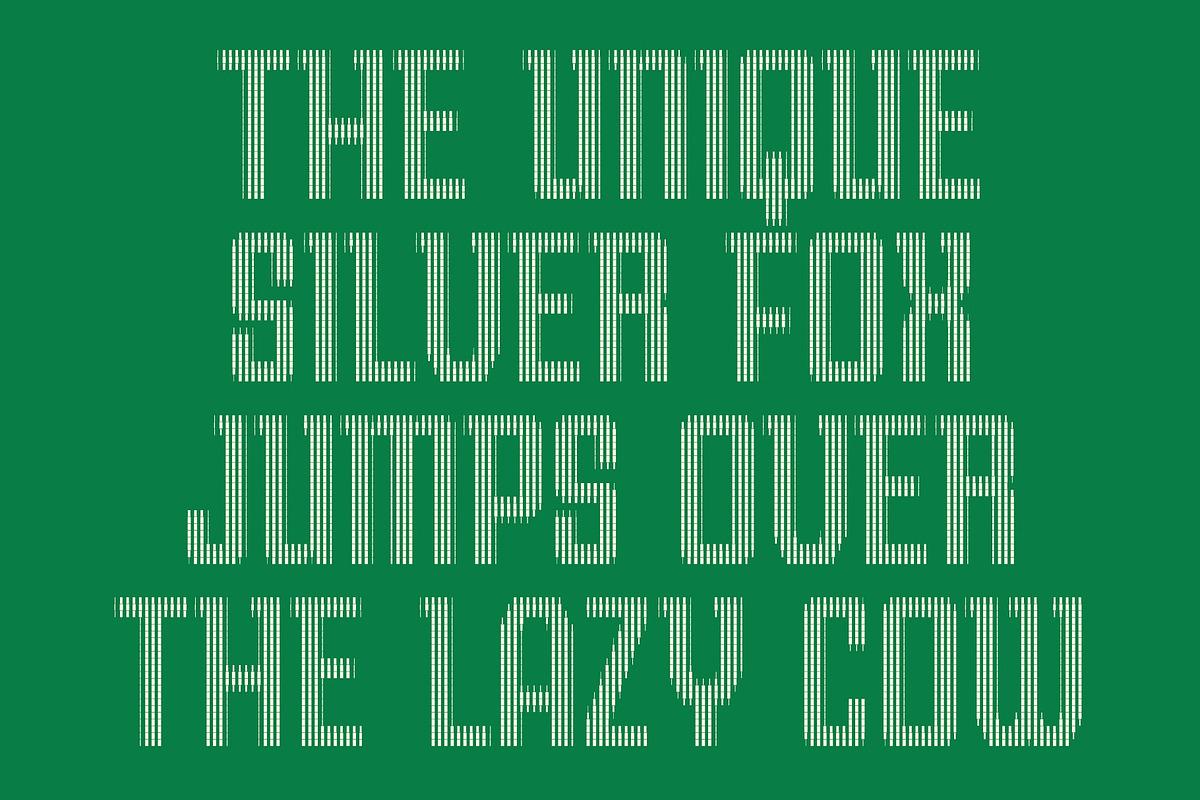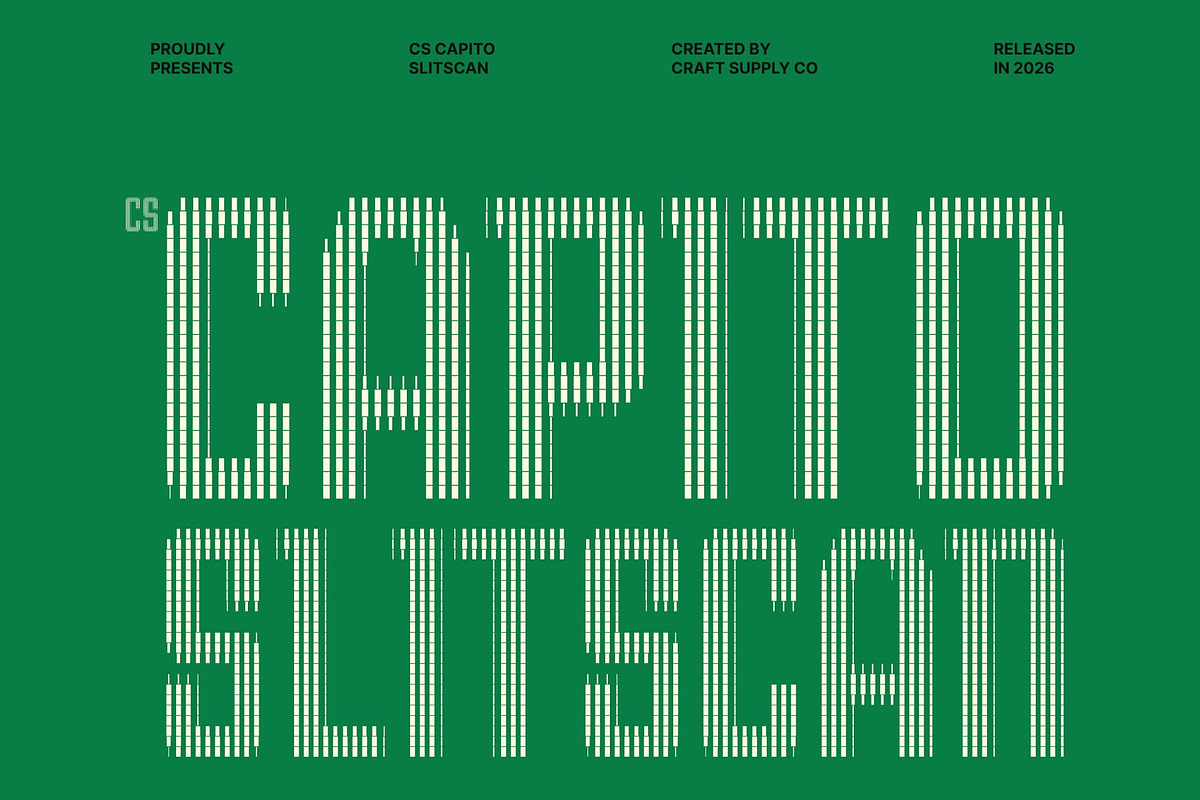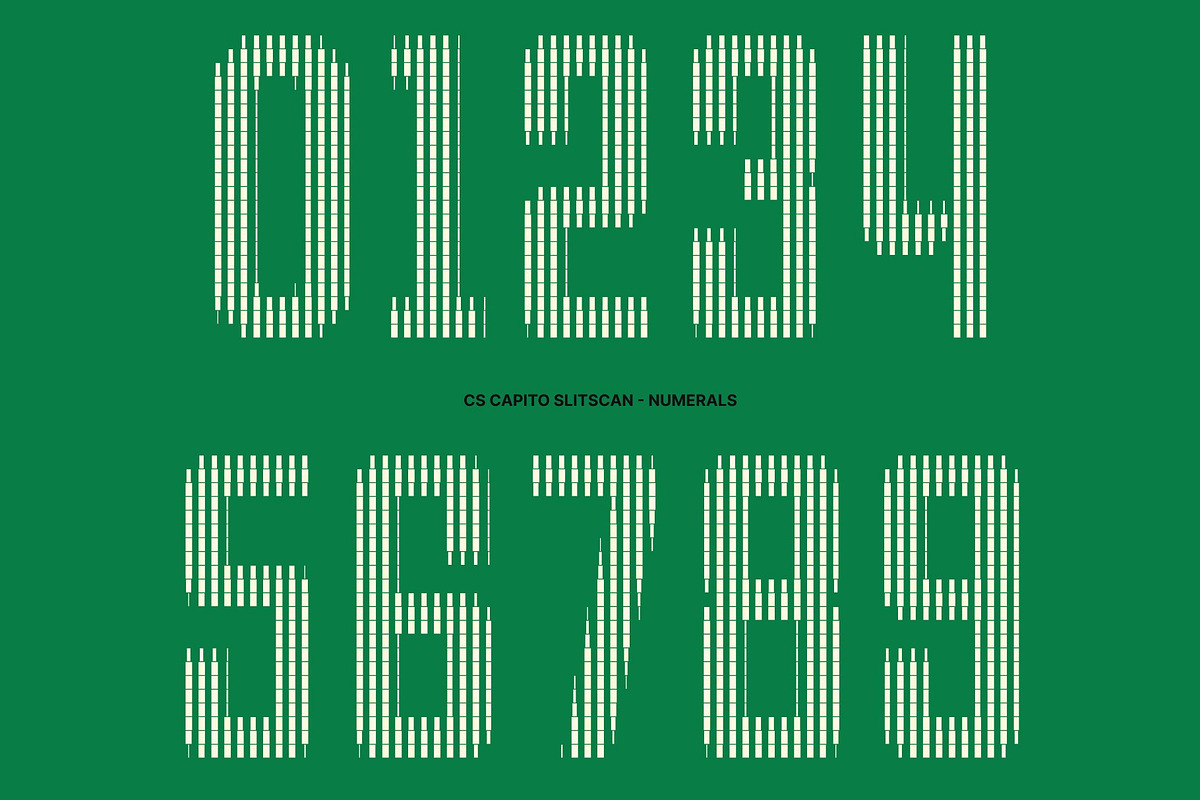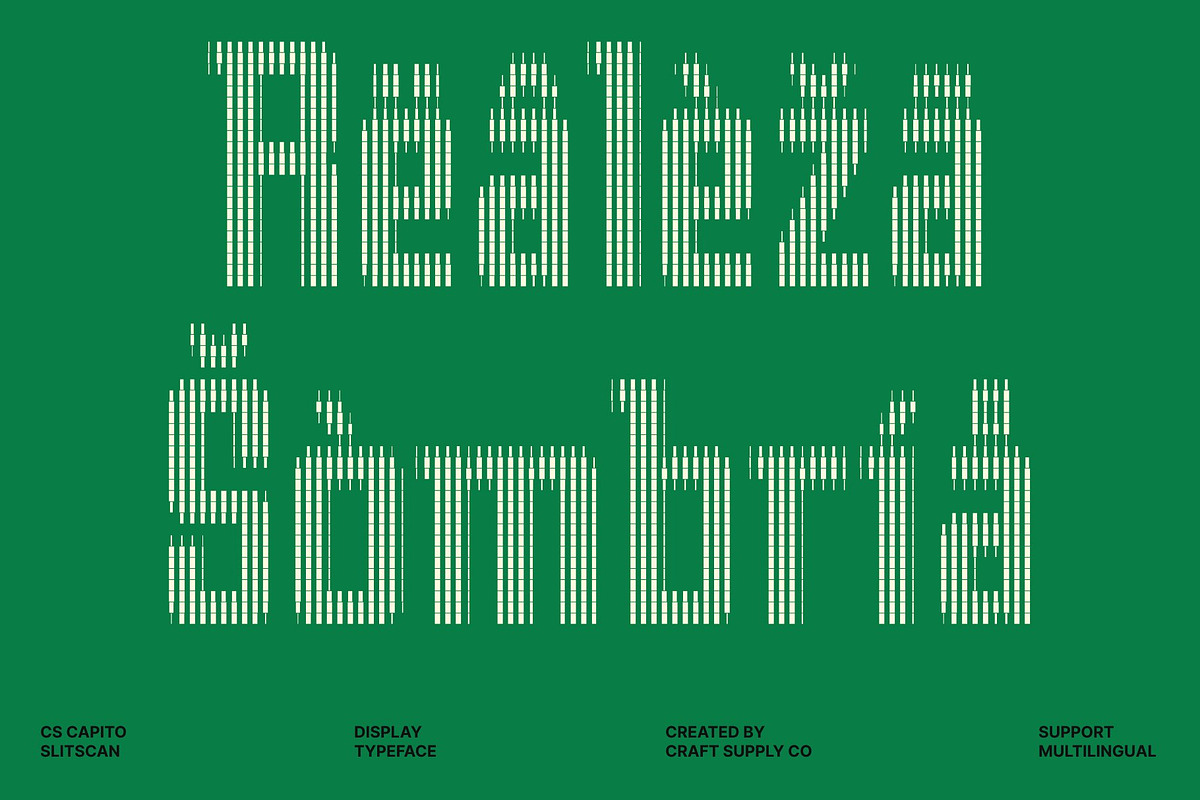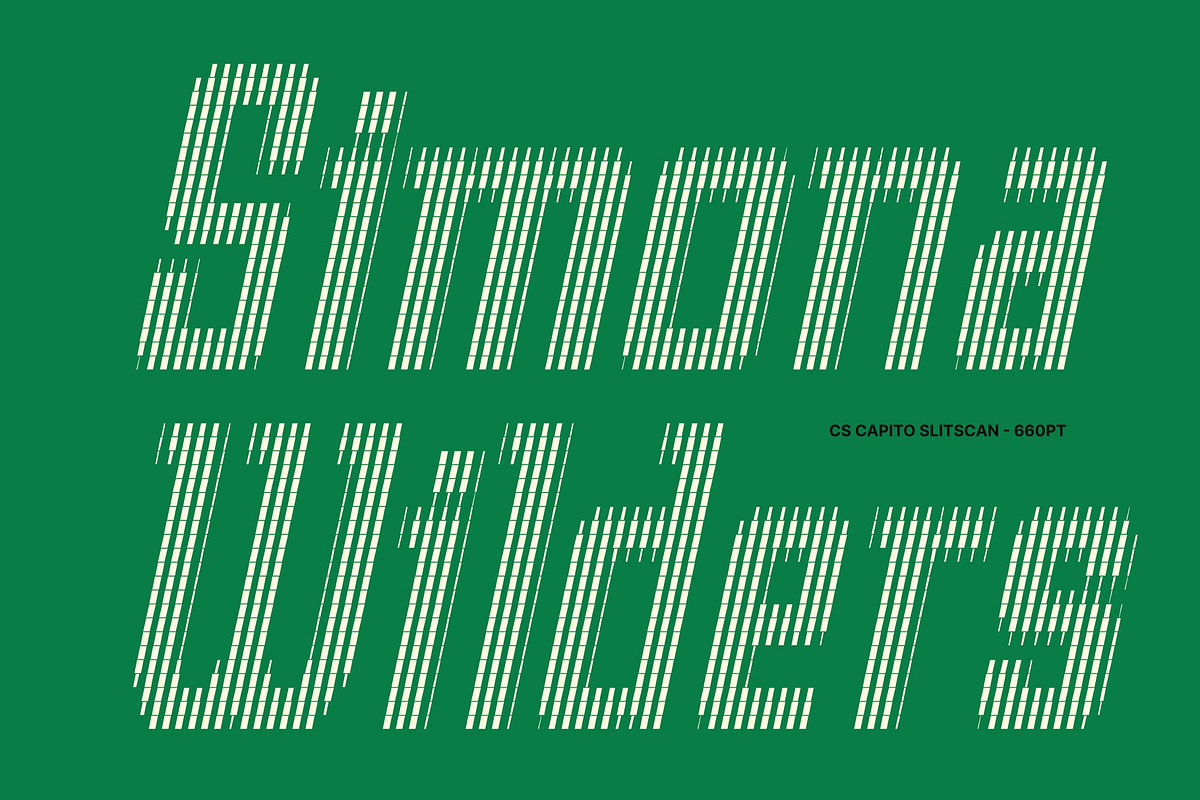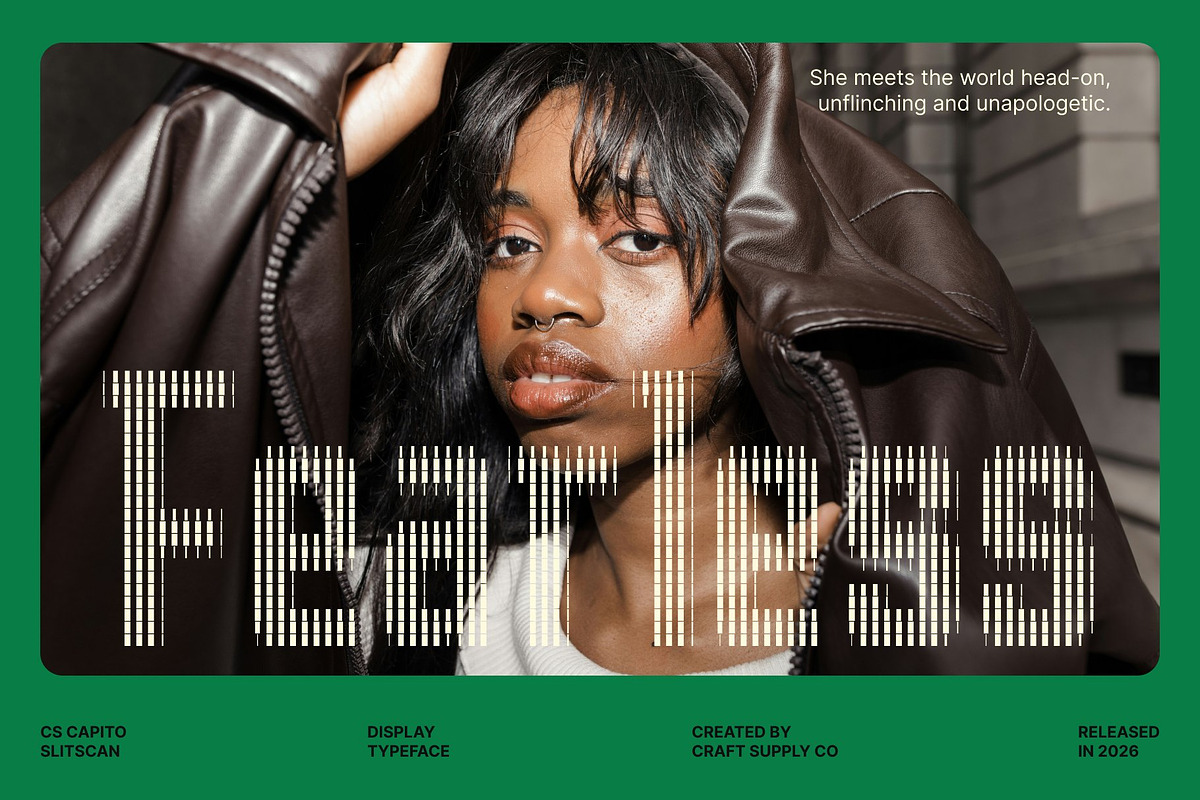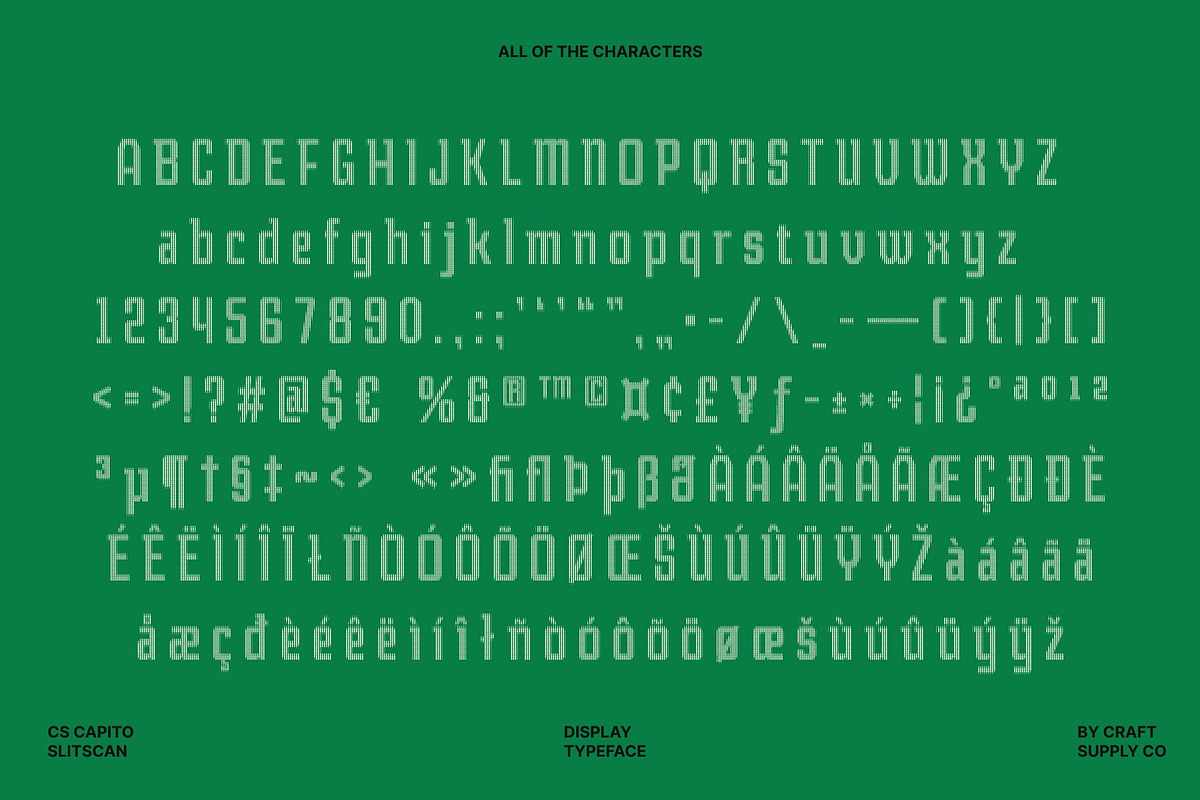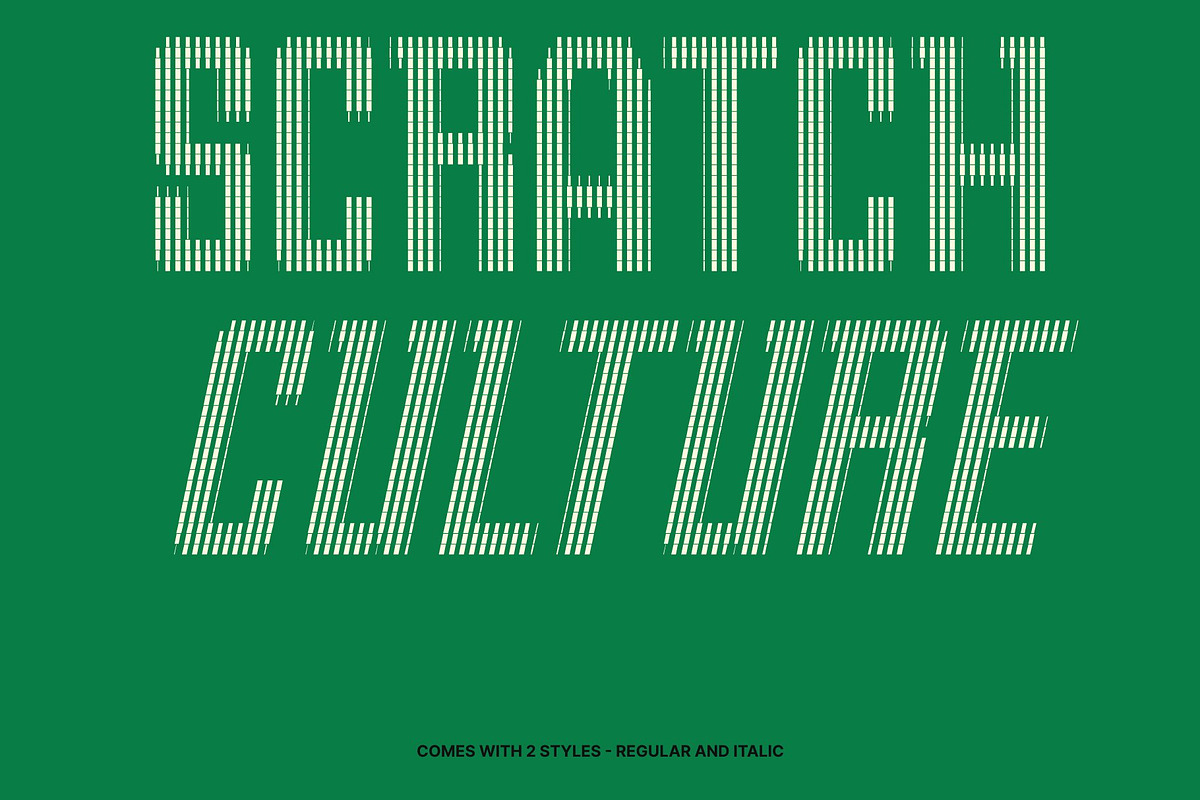
CS Capito Slitscan
CS Capito Slitscan – Sporty Energy with Dynamic Motion
Bold and Dynamic Display Typeface This is a modern sporty sans serif display typeface designed to express energy, movement, and speed. Its sharp, confident letterforms create a strong visual rhythm, making it ideal for designs that demand action and impact.
Slitscan Effect: Motion, Speed & Digital Energy Inspired by the slit-scan visual technique, this typeface features vertical sliced layers that enhance its sense of motion and intensity. The effect introduces a dynamic glitch-like energy, reinforcing its sporty and high-performance personality.
Strong Structure with Athletic Precision Bold upright forms and clean geometric construction give this font a powerful and decisive presence. Its solid structure ensures excellent readability while maintaining a sense of agility and forward momentum.
Perfect for Sports & High-Energy Branding Ideal for sports branding, team identities, advertising campaigns, event posters, and active lifestyle visuals. This font delivers a strong, competitive aesthetic that communicates speed, strength, and determination.
Energetic Appeal for Modern Visual Design With its fresh and dynamic character, this typeface brings excitement and vitality to any composition. From athletic campaigns to bold promotional graphics, this font captures the essence of movement and performance in every letter.
CS Capito Slitscan Regular
CS Capito Slitscan Italic